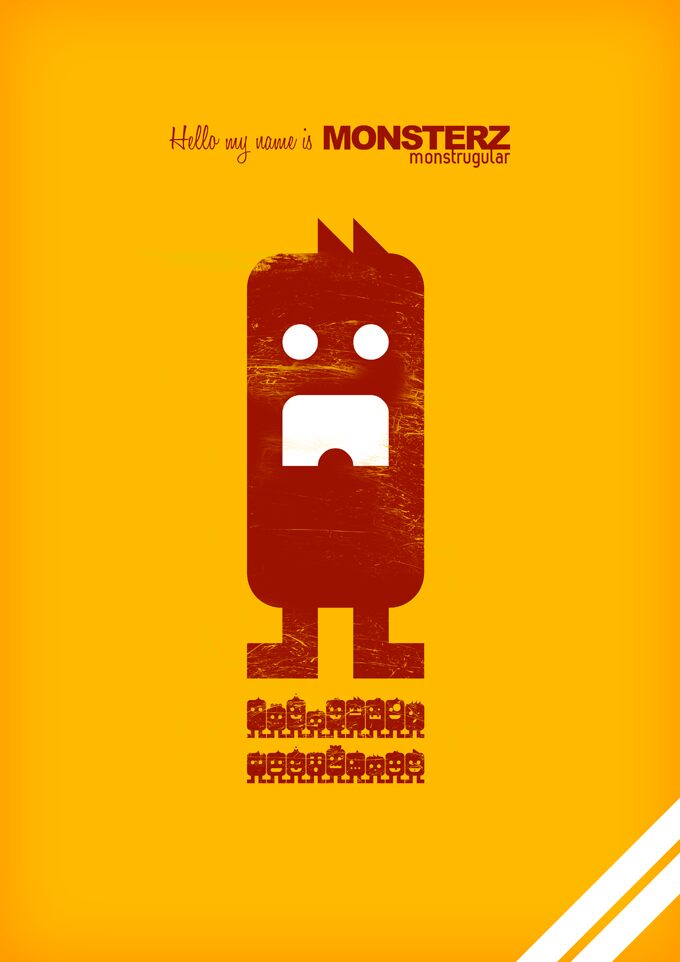
Monsterz by Slaager David Alexander is a free cartoon dingbat font filled with squat, friendly monster figures. Rounded bodies, stick-like legs, mismatched eyes, teeth, horns, and tufts give each symbol its own comic expression.
The font can turn a title into a tiny monster lineup. Its goofy creatures suit children's party materials, game graphics, toy packaging, and playful merchandise. Because every symbol is already a complete character, the collection can also supply recurring figures for stickers and simple spot illustrations.
Monsterz
Monsterz Regular
Slaager David Alexander